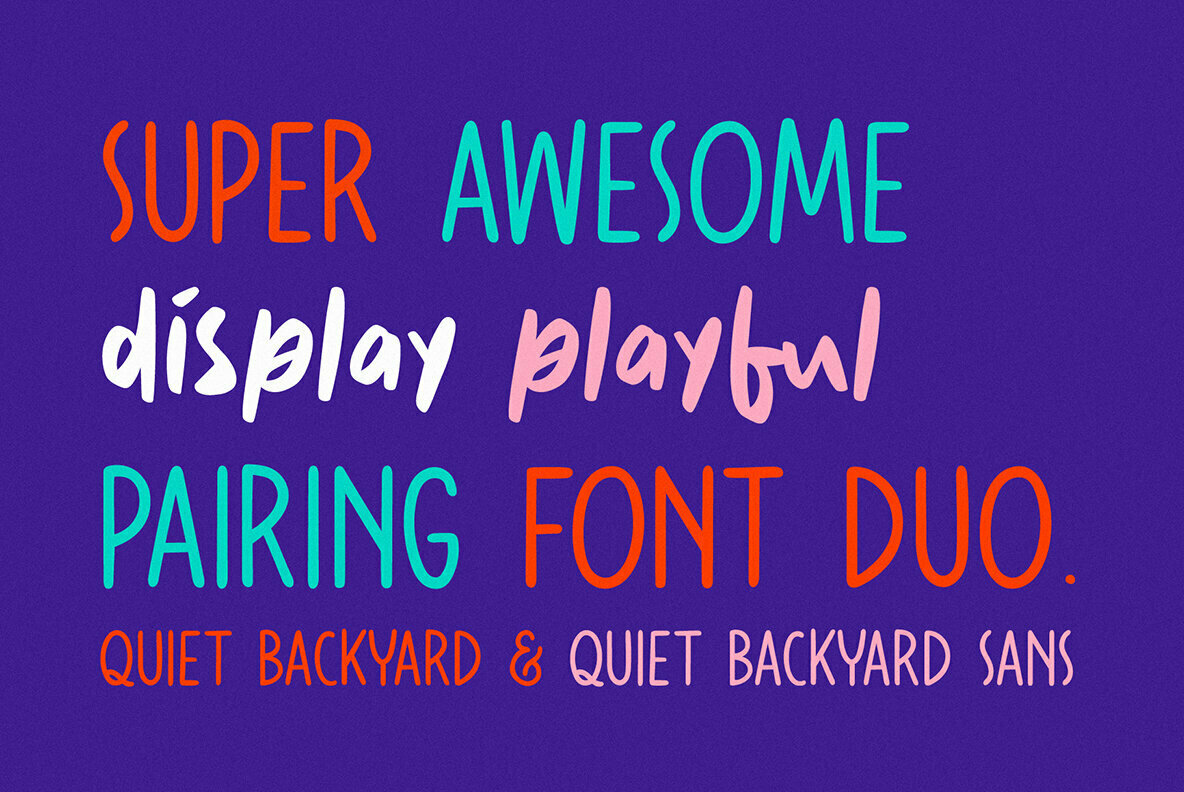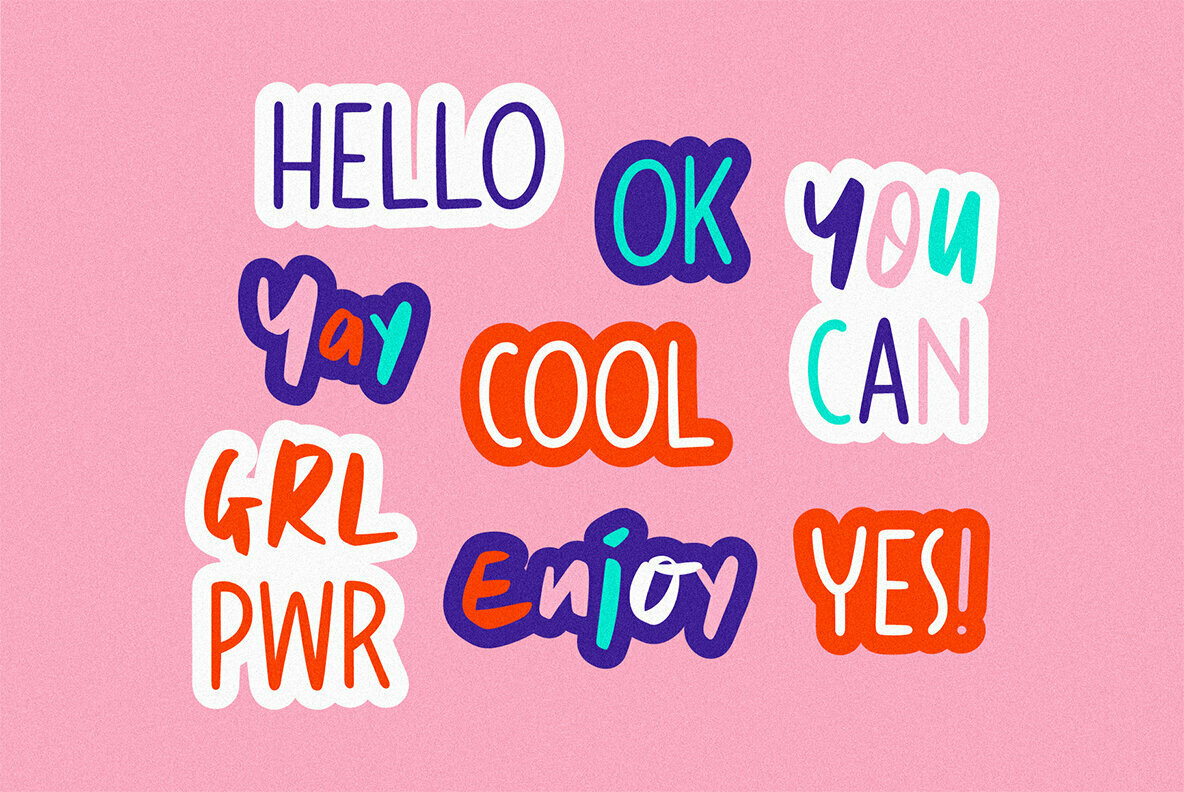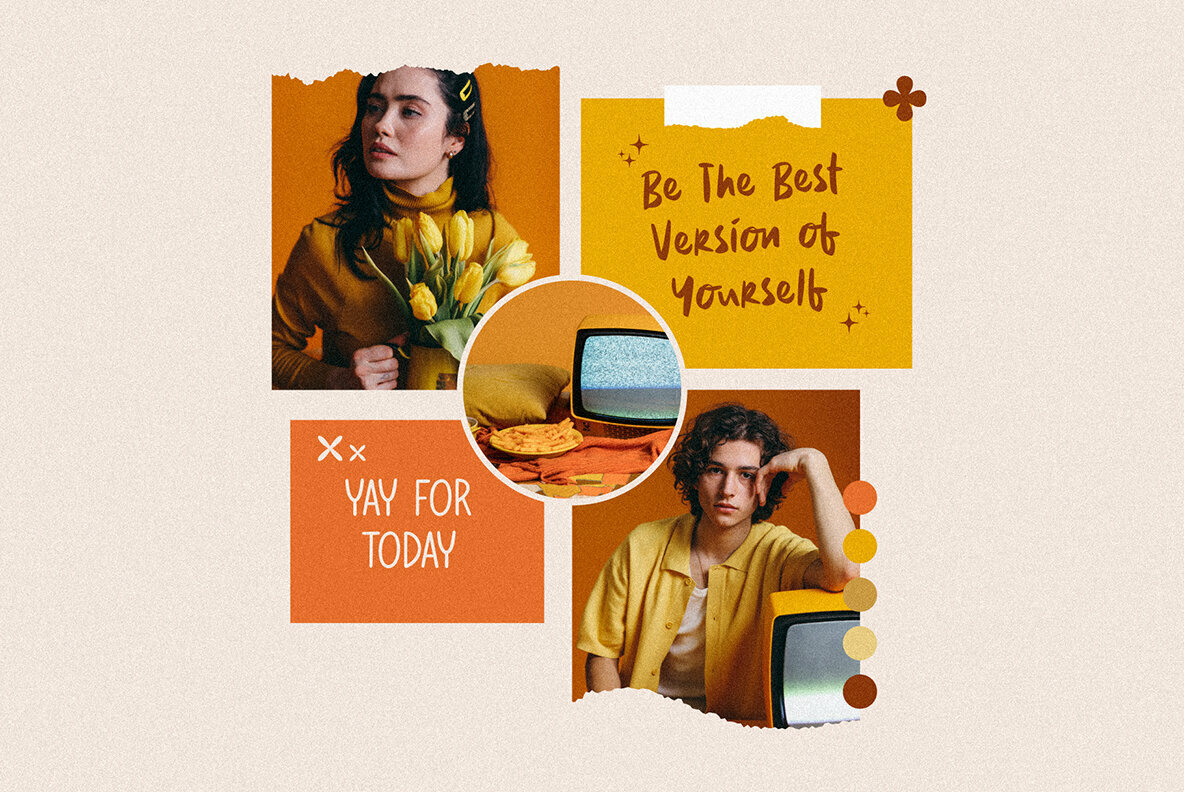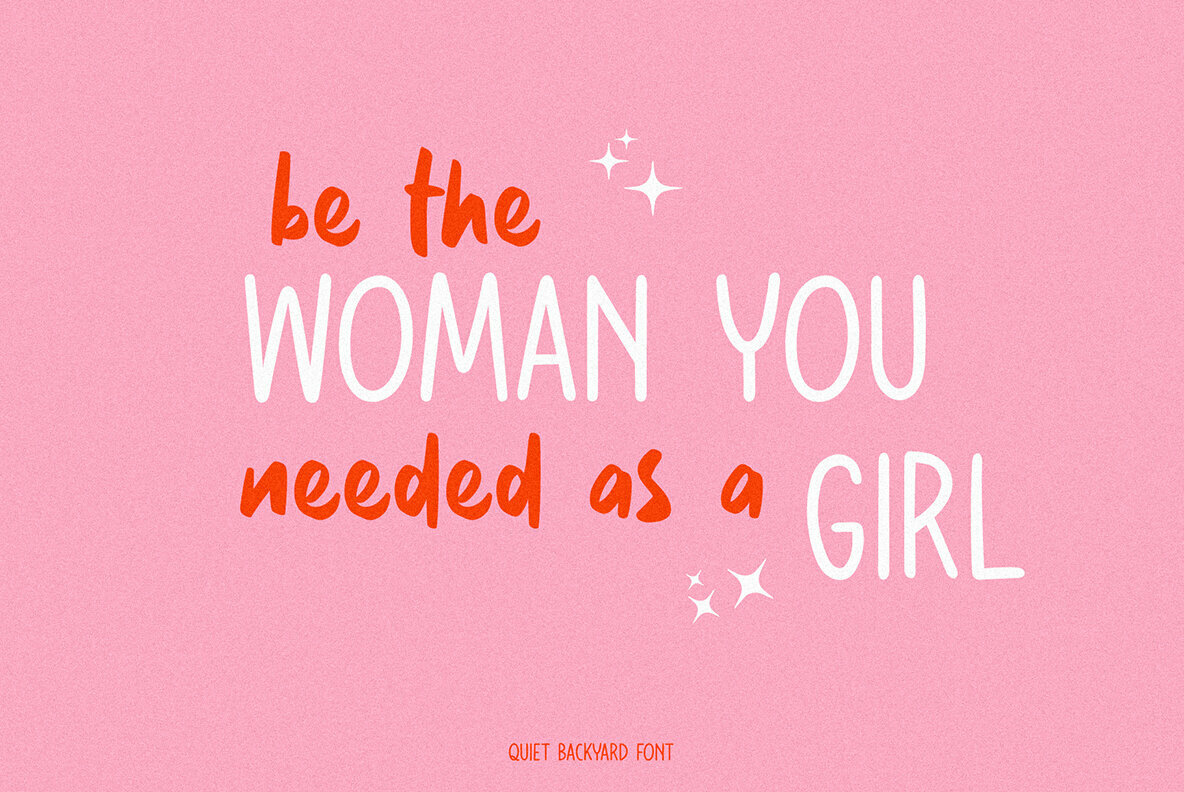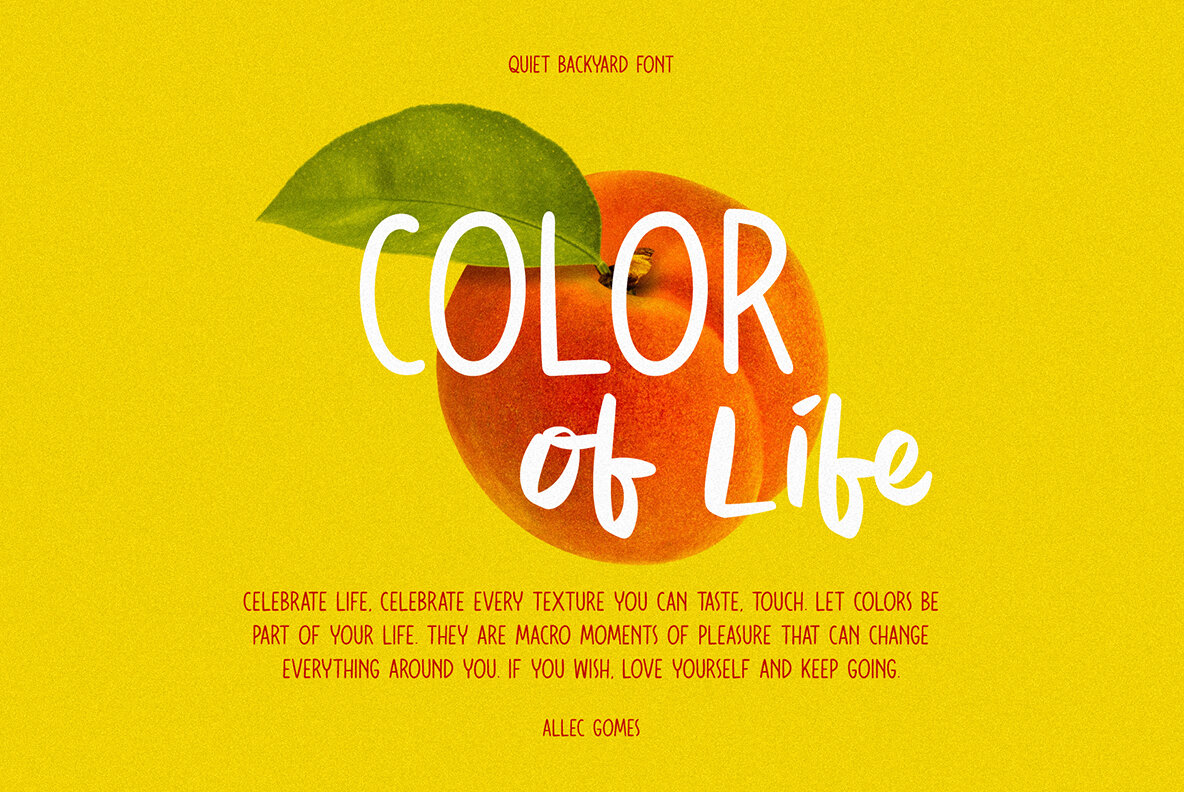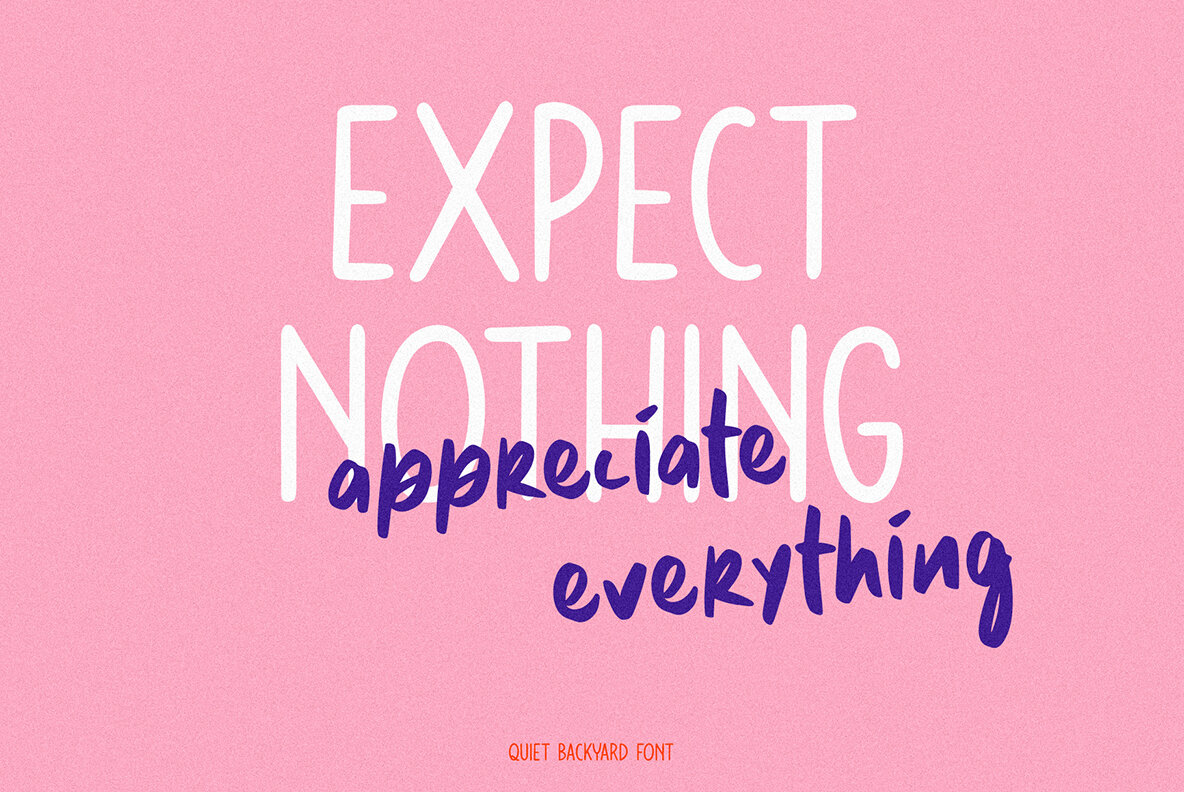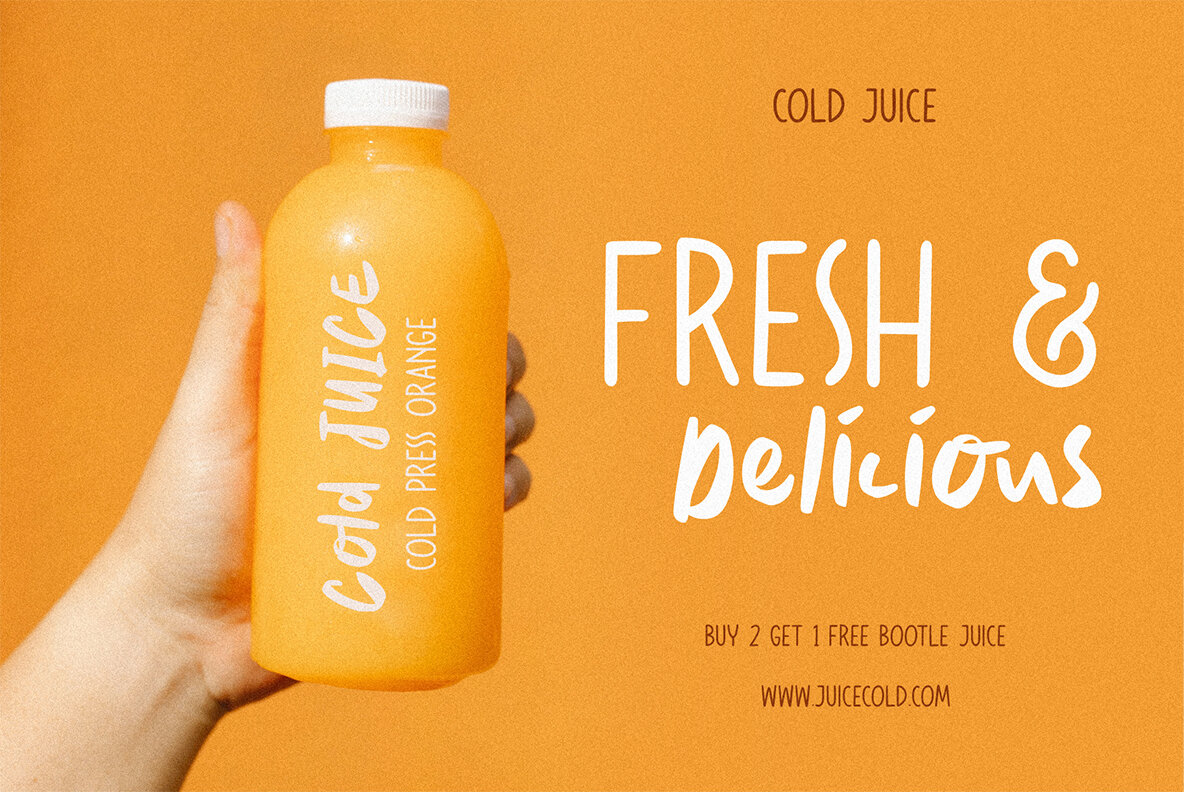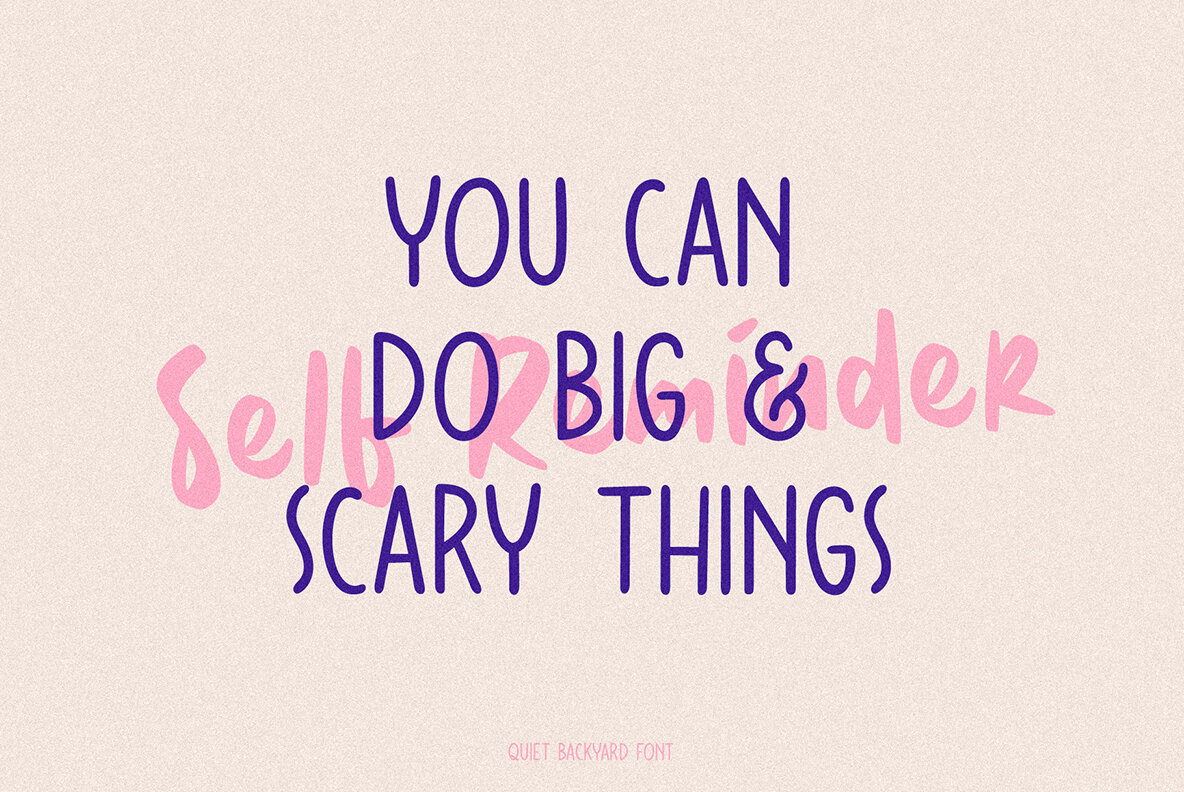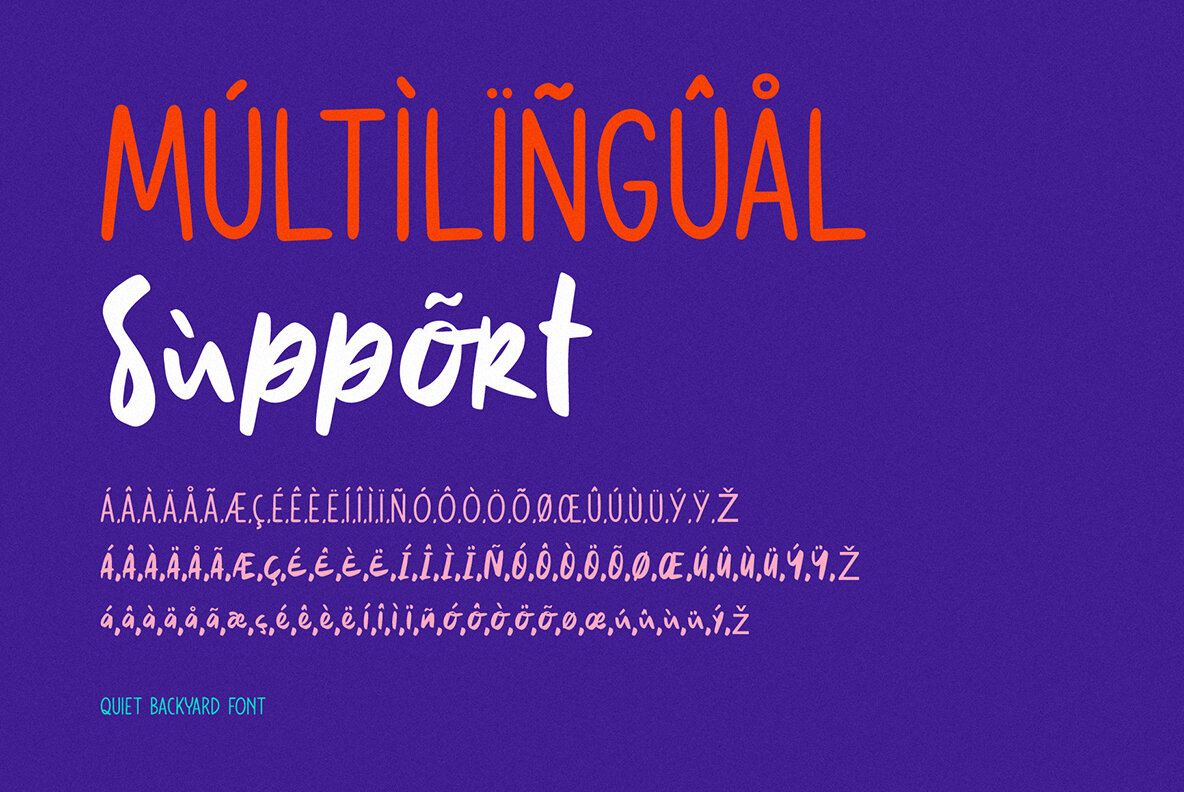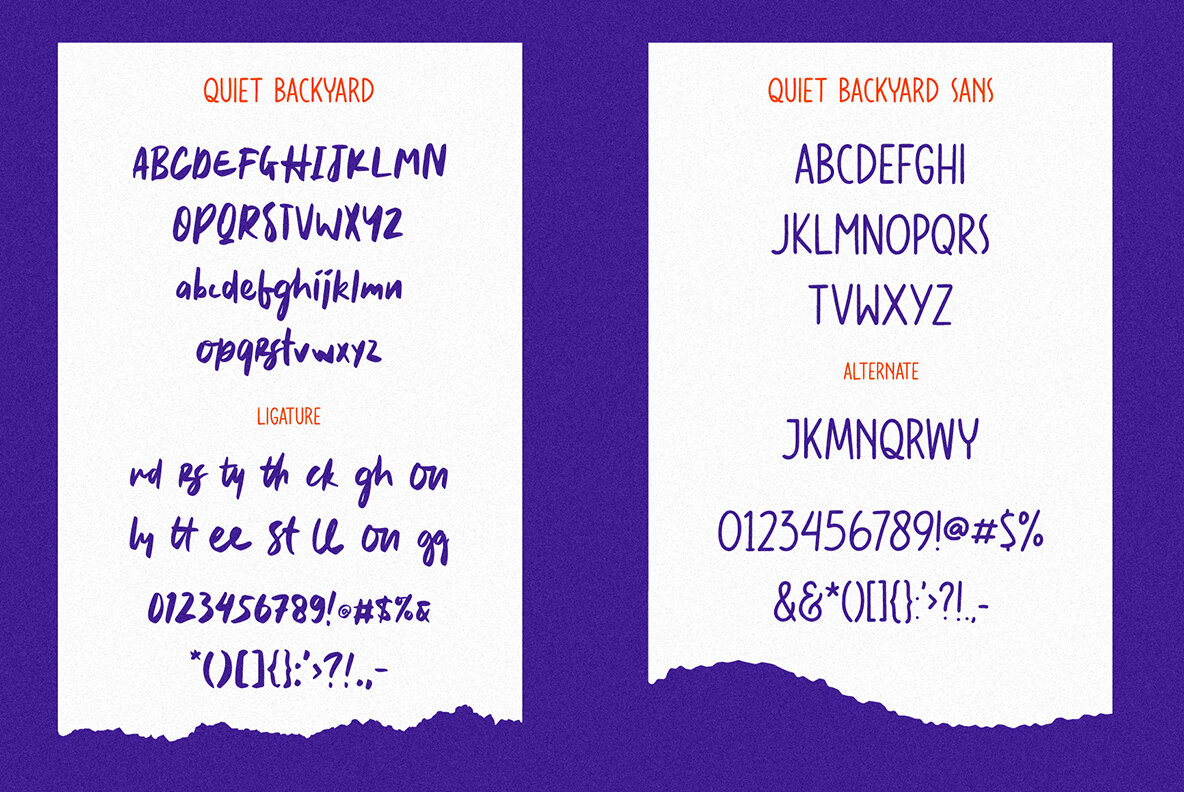
Quiet Backyard Font Duo
Quiet Backyard by Invasi Studio is a spirited duo of fonts that merges the lively charm of hand-lettering with the clean aesthetics of a rounded sans serif. This imaginative pairing is perfect for designers in search of a casual yet captivating touch to their projects. With its energetic and playful nature, Quiet Backyard is ideal for bringing a distinctive flair to display designs, logo creations, and brand imagery.Quiet Backyard Font Duo: Playful Typography for Dynamic Design